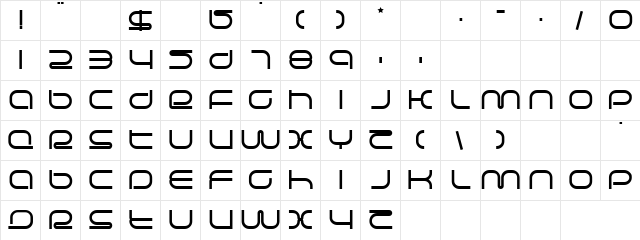
German Shepherd Regular
Design Context for German Shepherd Typeface
German Shepherd takes a measured approach to typography — its balanced proportions and neutral character make it a reliable workhorse for both digital and print work.
Pro Tip: Use German Shepherd in both headline and body roles to test its range before committing to a single application.